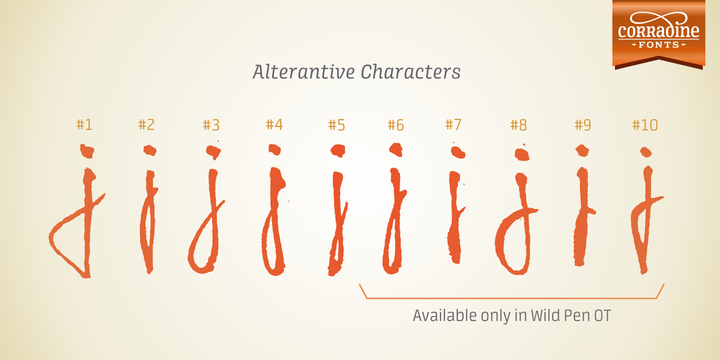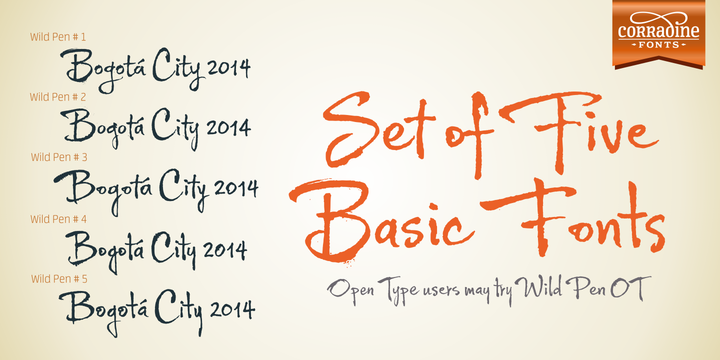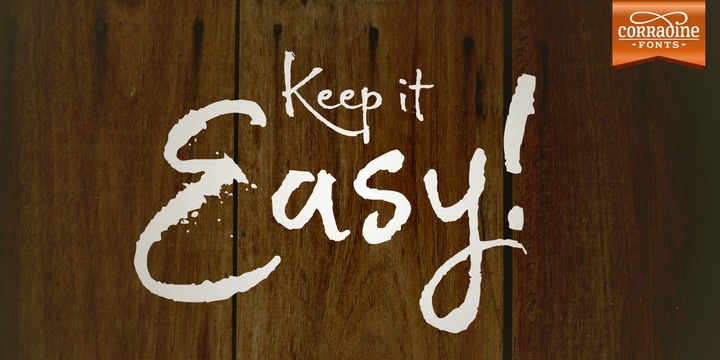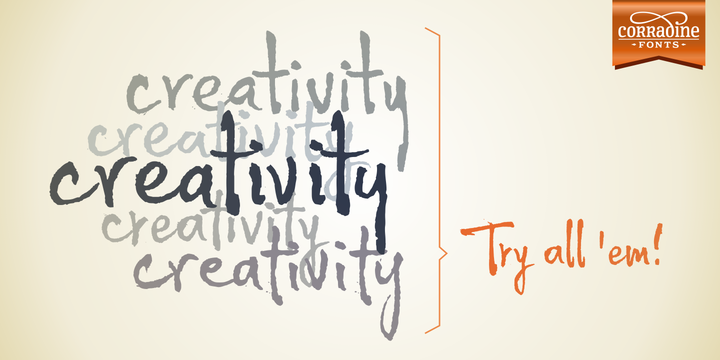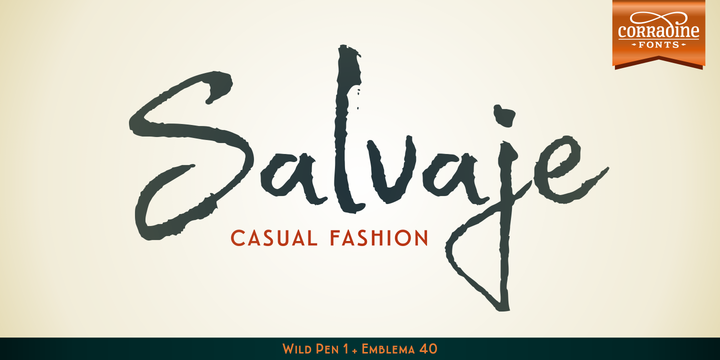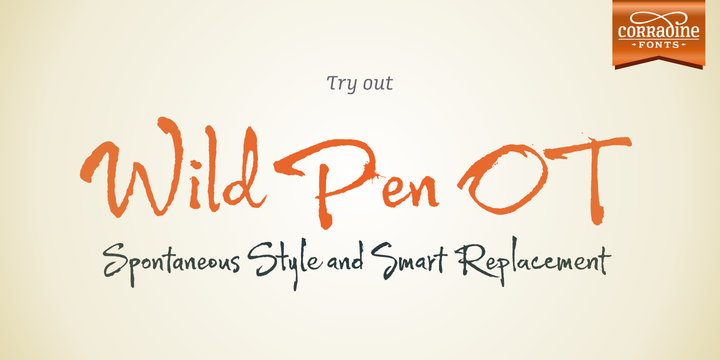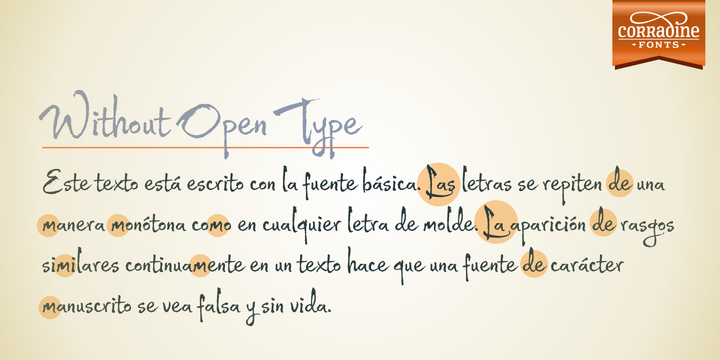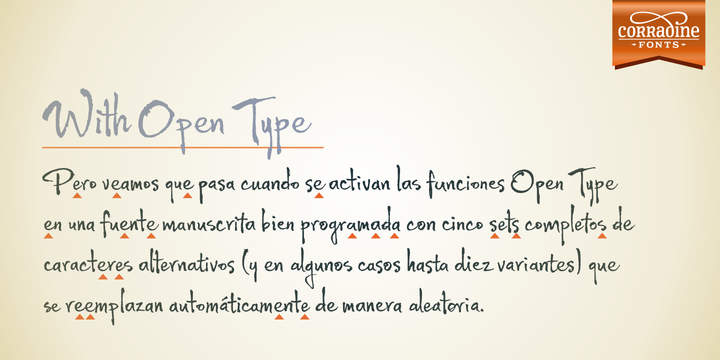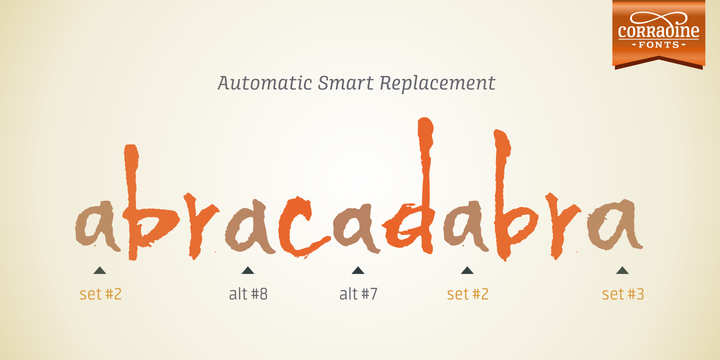
Wild Pen Family Font
About Wild Pen Family Font
Wild Pen is a hand written font family. It’s written with an experimental pen made from a recycled plastic bottle. Its spontaneous strokes are very free and allow presence of drops and blots of ink. The complete family consists of five different fonts which have the same feeling and allow mixing them to obtain a lifelike handwriting text.